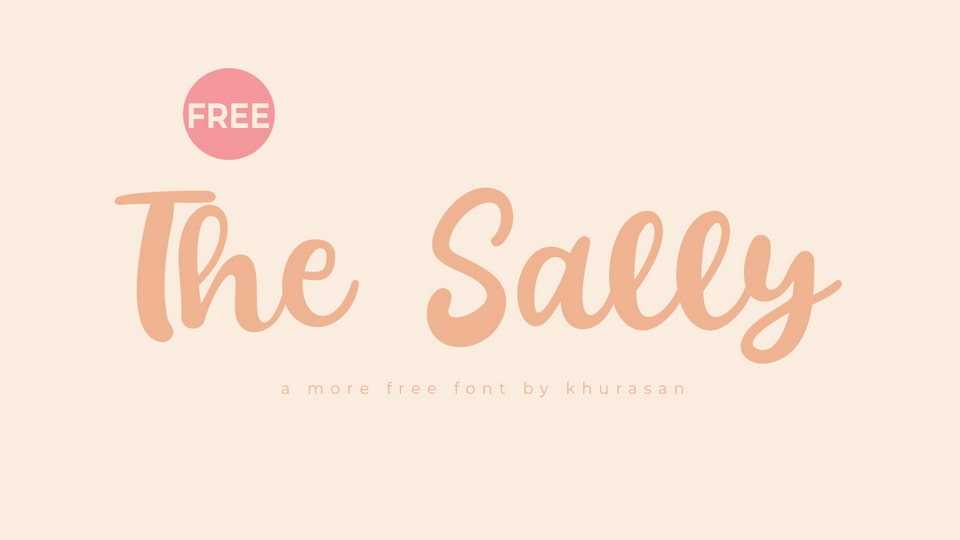
Download The Sally font, a lovely calligraphy typeface that embraces simplicity and elegance. Each stroke of this font is a testament to the beauty of understated grace, creating an effortlessly pretty and refined aesthetic.